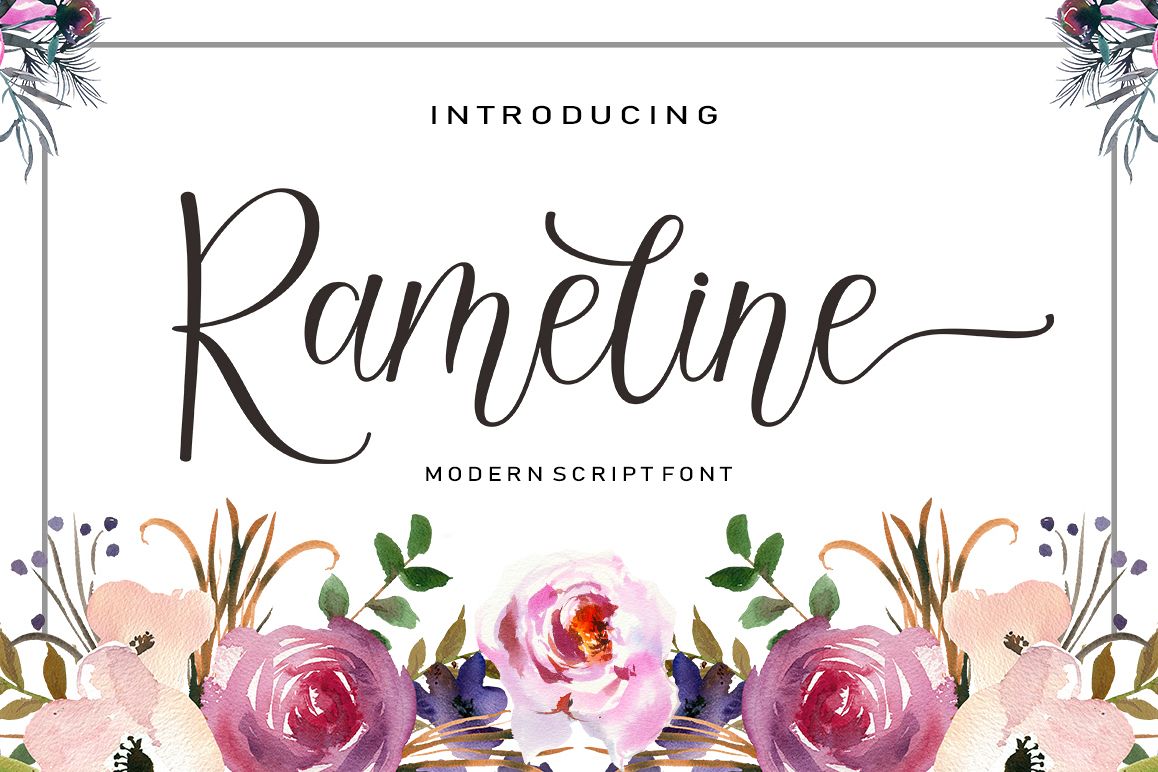
Rameline Script
Rameline Script is a modern script font, elegant, tasty flow and playful with swashes. Features Open type feature, stylistic alternates, ligatures and International support for most Western Languages. You need a program that supports OpenType features such as Adobe Illustrator CS, Adobe Photoshop CC, Adobe Indesign.
Perfect to creating modern designs like ads, sales, logos, branding, posters, social media text overlays and wedding invitation. All lowercase letters include alternates, beginning & end swashes, that makes the font look fabulous!